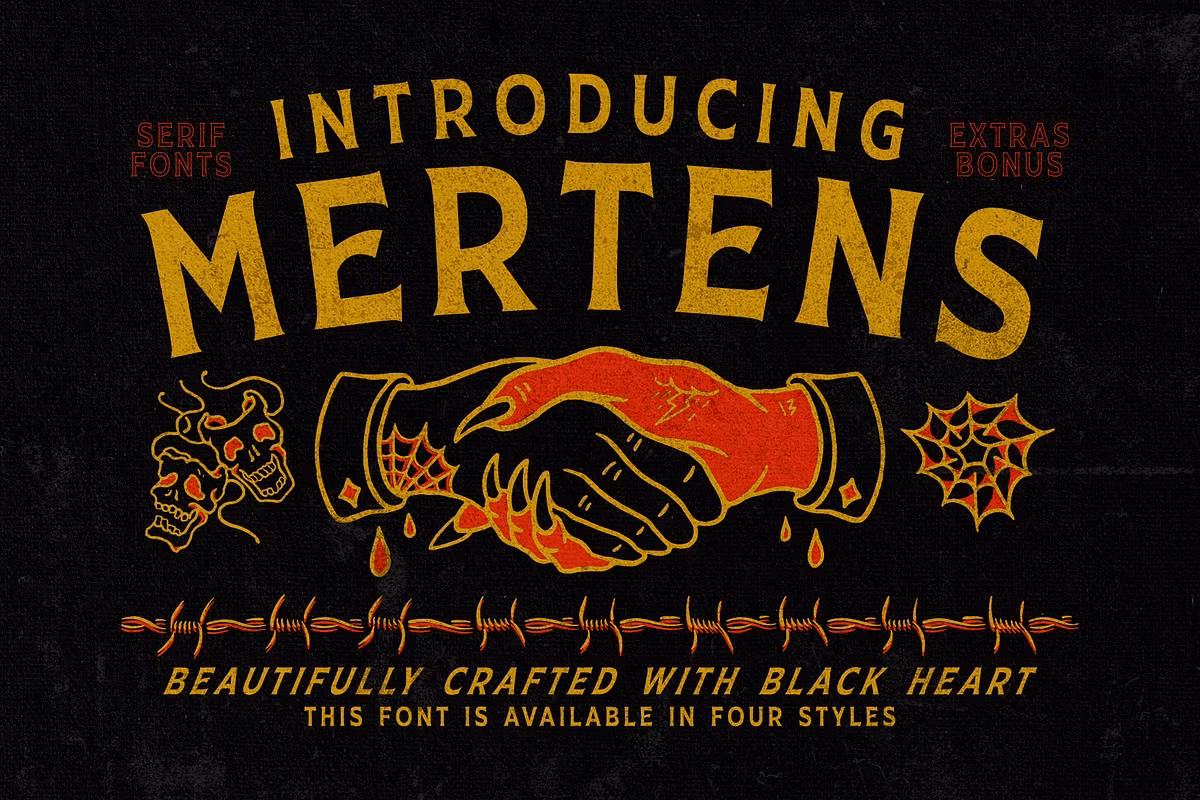
Mertens + Traditional Tattoo Extras Free Download
Mertens + Traditional Tattoo Extras Free Download is a unique font bundle that combines the bold, stylish Mertens typeface with intricate Traditional Tattoo Extras for an authentic, artistic touch. This collection is perfect for creating tattoo-inspired designs, vintage branding, posters, logos, and anything that requires an edgy, retro style.
The Mertens font is designed with sharp, classic letterforms that offer a mix of elegance and strength. Paired with the Traditional Tattoo Extras, which includes symbols, flourishes, and decorative elements, this bundle allows you to create visually striking and detailed designs with ease.